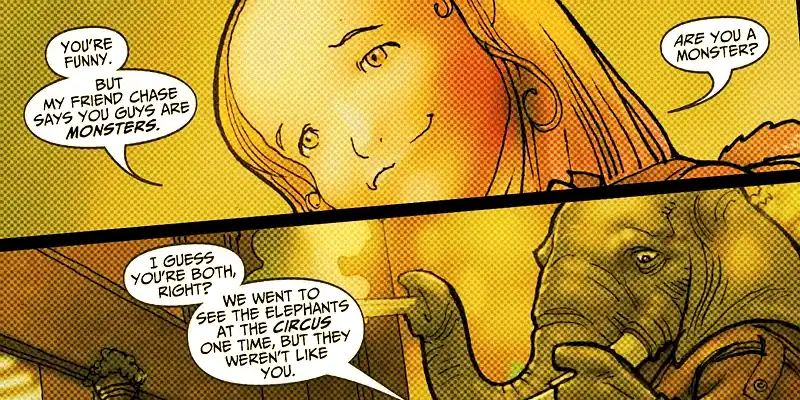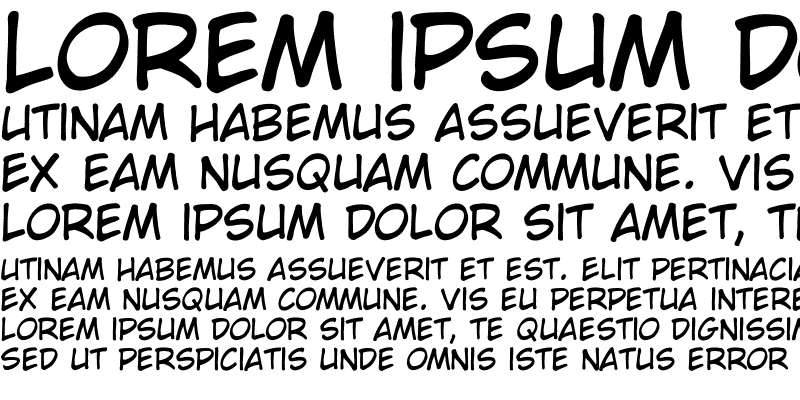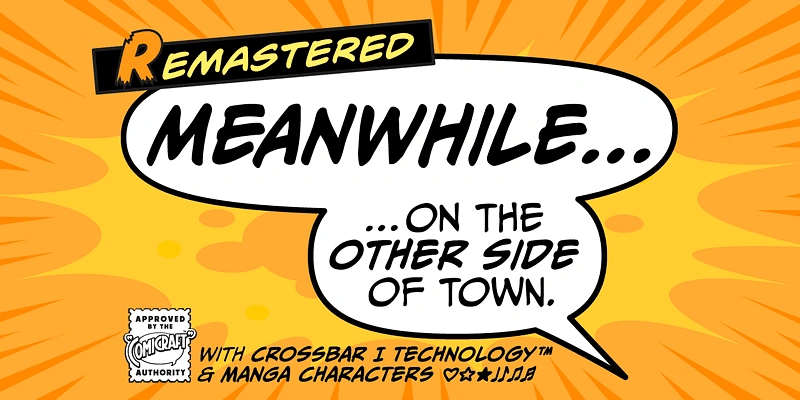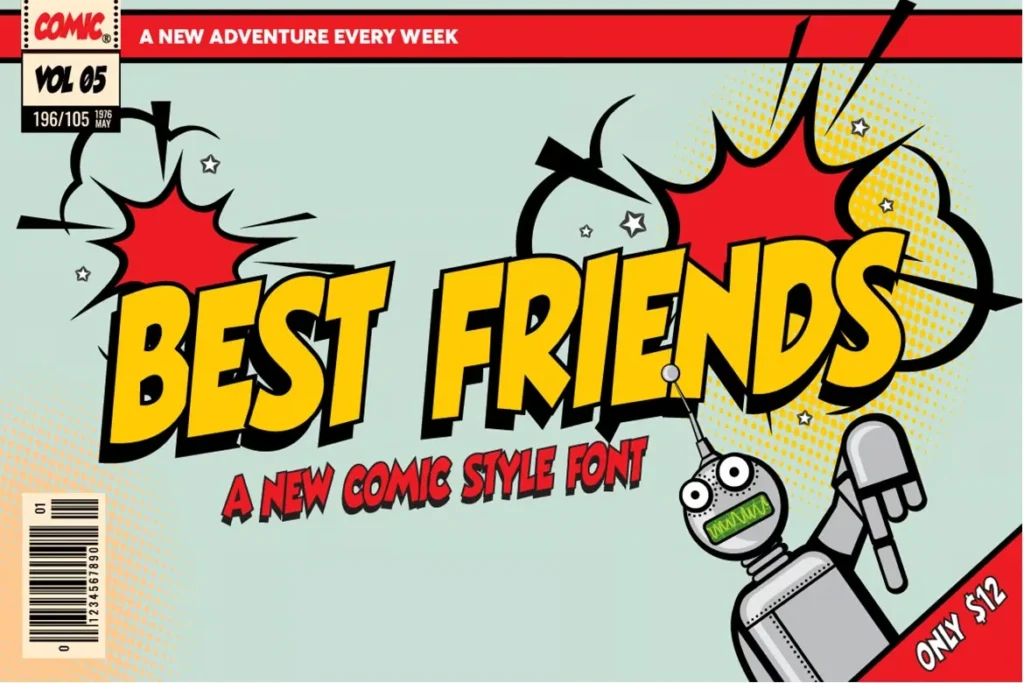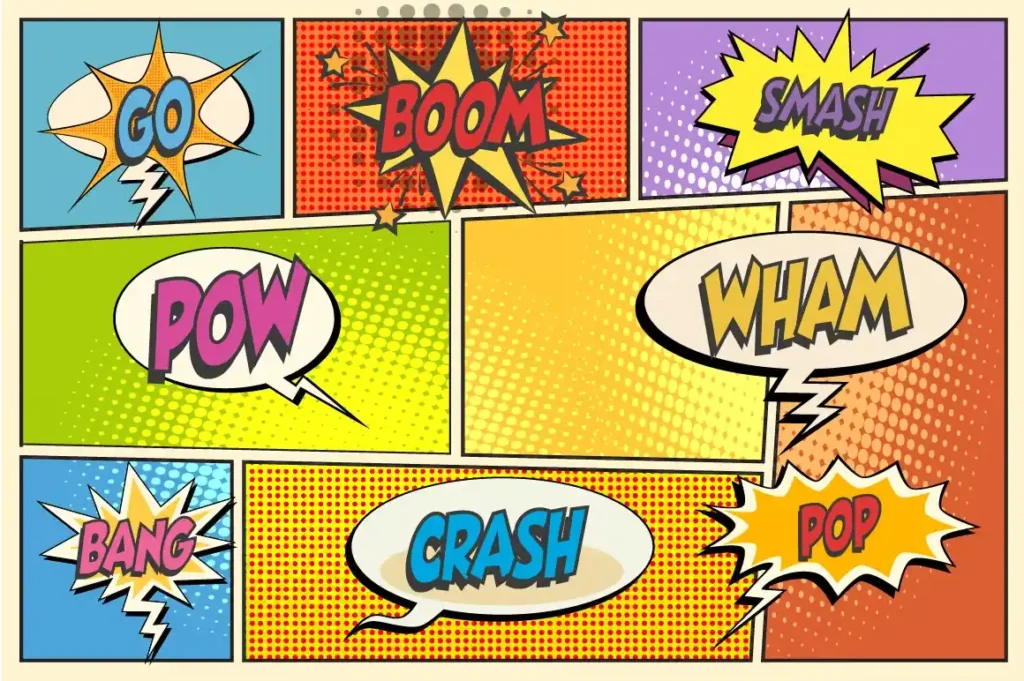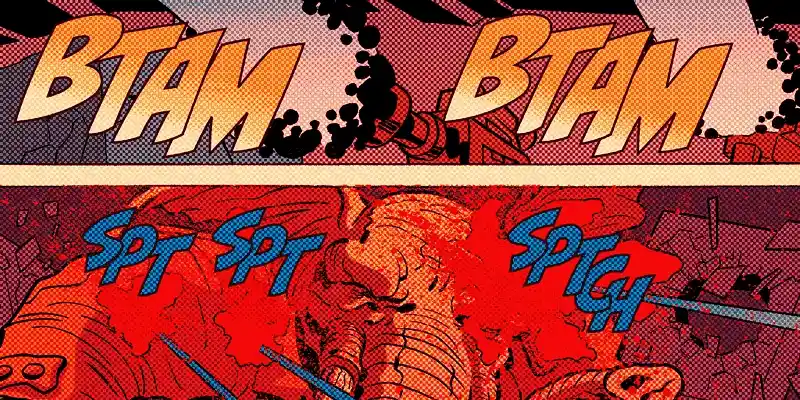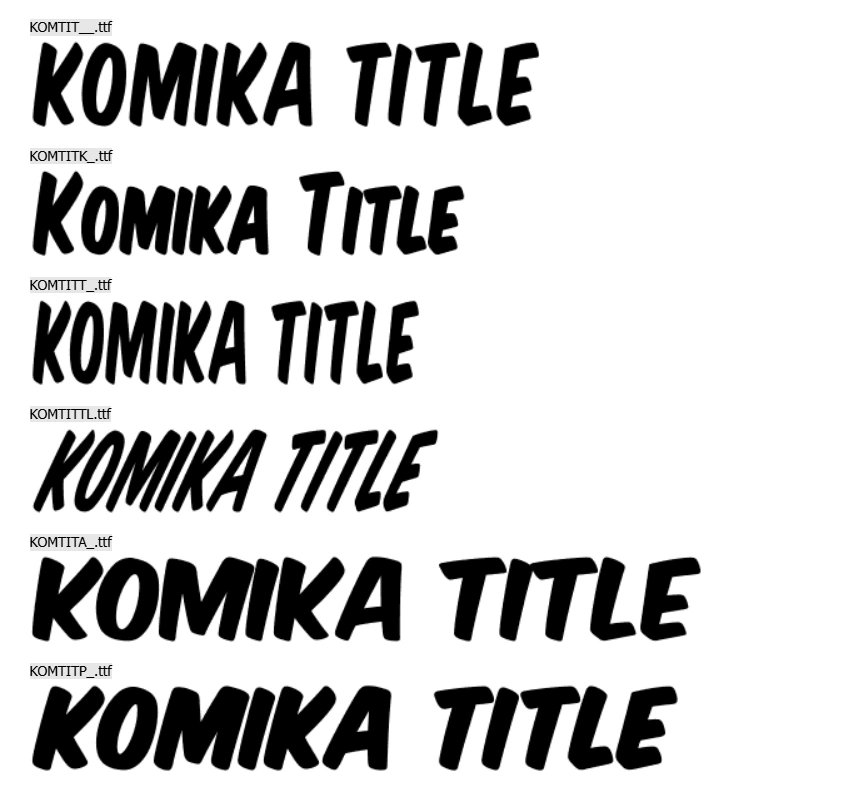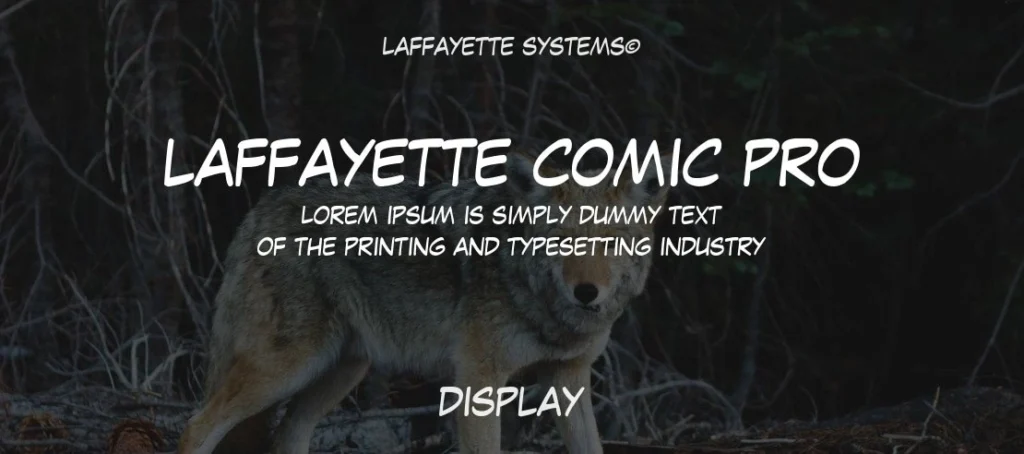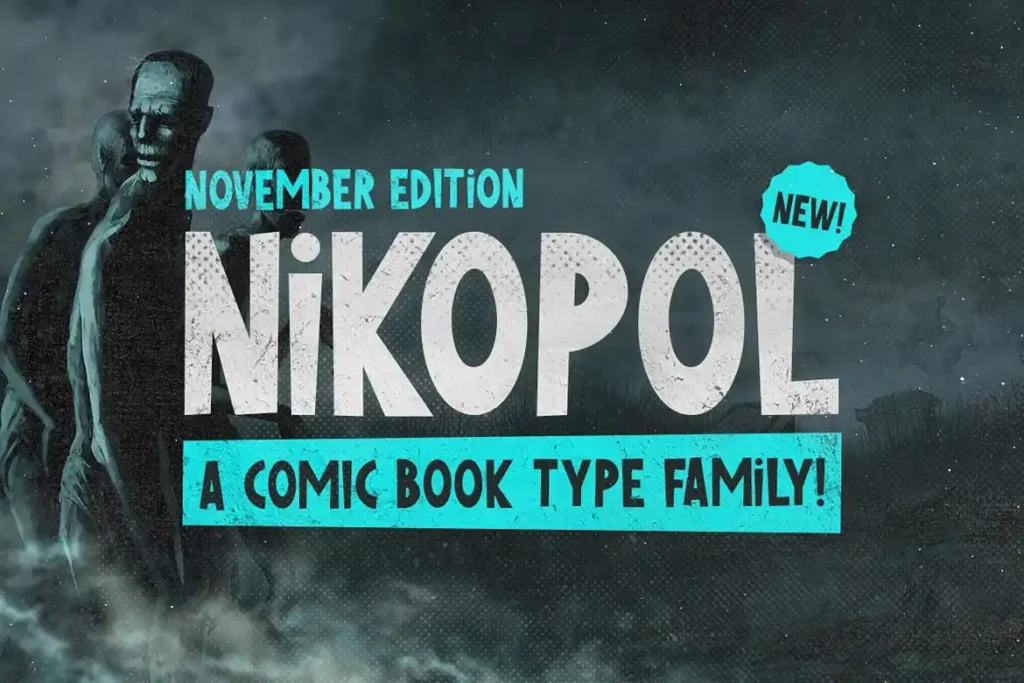
20 Professional Comic Book Fonts That Designers Love
The right comic book font can make or break your story. It’s not just about the words—it’s about how they feel on the page. A well-chosen font adds emotion, energy, and personality to your dialogue, sound effects, and titles. On the other hand, a wrong font choice can make your comic look unprofessional or hard to read.
Comic book fonts are specifically designed to match the expressive nature of comics. They often have bold strokes, a hand-written feel, and dynamic shapes that make your characters’ words come alive. Professional designers carefully choose fonts that fit the mood of their stories, whether it’s a high-energy superhero battle or a quirky slice-of-life scene.
Most font lists focus on basic free options, but this one highlights a premium and lesser-known font that gives your comic a professional touch. These fonts come with unique features like multilingual support, layered styles, and variable weights, making them a favorite among serious designers.
What Are Comic Book Fonts?
Comic book fonts are designed to bring stories to life. They are bold, playful, and full of energy, just like the characters and action in comics. Unlike regular fonts, comic book fonts often have a hand-drawn feel, making them look more natural and expressive. They use thick strokes, dynamic letter shapes, and unique styles to match the excitement of the comic page.
A Brief History
Before computers, comic book lettering was done by hand. Artists would carefully write dialogue, sound effects, and captions with a brush or pen, giving each comic a personal touch. Over time, digital fonts replaced hand-lettering, making the process faster while still maintaining the classic comic style.
Pioneers like Blambot and Comicraft led this change, creating high-quality fonts that mimic traditional letters and offer more flexibility for designers. Today, professional comic book fonts are widely used in print, webcomics, and even animated projects.
Why Do They Matter?
The right font sets the tone of the comic. A light-hearted, fun story might use a round, bubbly font, while an intense superhero comic might need something bold and dramatic. Fonts also help tell the story – sound effects like “BAM!” or “WHOOSH!” need powerful, catchy letters to match the action. Without the right font, the comic can look dull or hard to read.
Choosing the right font brings your story to life, making every panel more engaging and expressive.
20 Best Comic Book Fonts Designers Love
1. Blambot Pro
Blambot Pro is a playful, handwritten font with bold, rounded characters. Its consistent, thick strokes give it a casual and friendly appearance, making it a favorite among comic book professionals.
This font is ideal for dialogue in comic books, as its clear and polished look ensures readability. It’s also well-suited for titles and sound effects, adding a dynamic touch to your comic’s design.
2. CC WildWords
CC WildWords
• Created by Comicraft in 1995 for Jim Lee’s WildStorm comics
CC WildWords has become a favorite among comic book professionals. Its clean, handwritten style offers a natural and dynamic look, making it suitable for various comic genres. The font includes four weights and alternate uppercase alphabets, providing flexibility in design. It also supports multiple languages, including complete European, Cyrillic, and Greek characters, and features automatic alternates and Manga characters.
CC WildWords is ideal for dialogue, titles, and sound effects in comics. Its clear and expressive design ensures readability while adding a professional touch to your comic’s lettering.
3. CC Meanwhile
CC Meanwhile
• Created by Comicraft
CC Meanwhile offers a clean and modern look while keeping the classic comic book style. It comes in four weights: Regular, Italic, Bold, and Bold Italic. The font includes alternate uppercase letters, supports Western and Central European accents, and features Cyrillic characters. It also has special symbols like hearts, stars, and notes for Manga lettering, along with Comicraft’s Crossbar I Technology™ to ensure the letter ‘I’ appears correctly.
CC Meanwhile is great for dialogue and narration in comics, providing a clear and professional appearance. Its modern design makes it suitable for various comic genres, from superhero adventures to slice-of-life stories.
4. SF Action Man
SF Action Man
• Designed by ShyFoundry
SF Action Man is a bold and energetic font with rounded, slightly slanted letters. Its thick, consistent strokes give it a strong presence, while the playful design adds a dynamic feel. This font includes a complete character set with both uppercase and lowercase letters, numbers, punctuation, and accented characters.